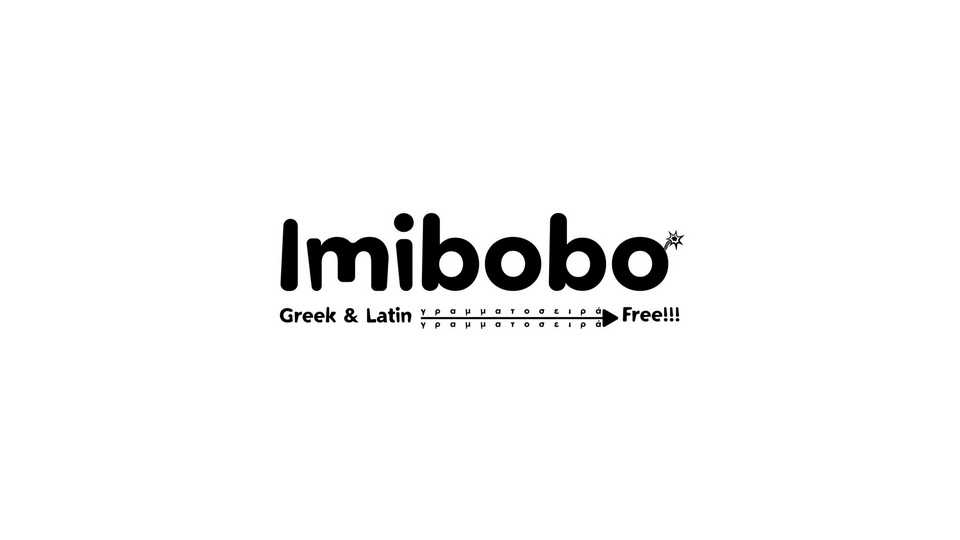
Download Imibobo font, a typeface that bursts with exuberant playfulness and undeniable boldness. Imibobo font is perfect for designs that demand attention and a lighthearted vibe.
Designer: Christos Lentzaris